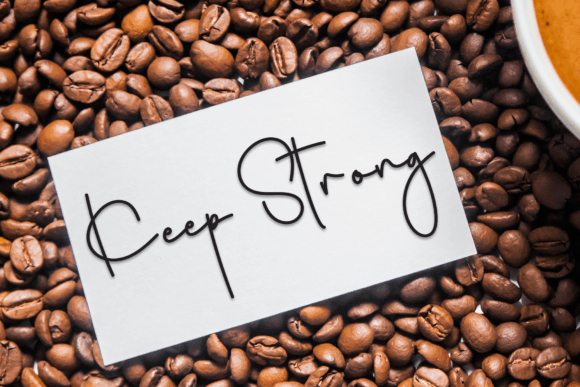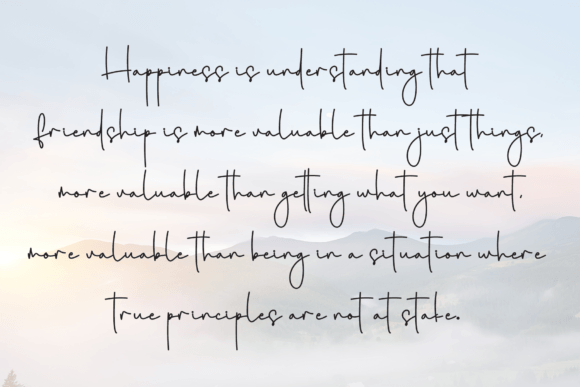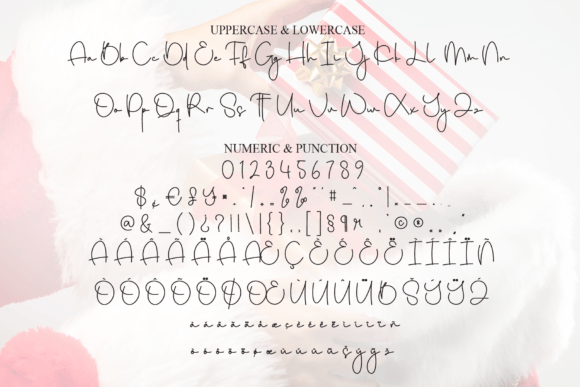
Introduction to Santagift Font
Santagift is a playful and elegant script font with flowing, cursive letters.
It has a festive, handwritten style perfect for holiday cards, gifts, or any cheerful design The letters are smooth and connected, giving a warm, inviting feel to your projects.